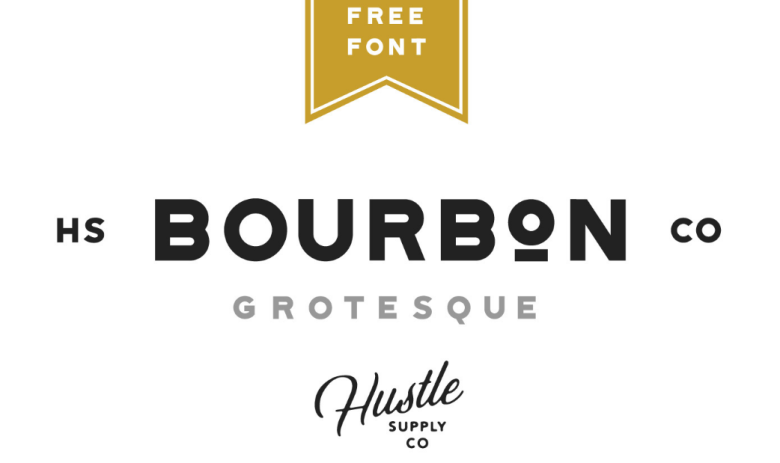
Bourbon Grotesque Font
Great! That was my initial feeling, continue to be a new font sans serif. Introducing Bourbon Grotesque Font! Bourbon Grotesque font was designed by Jeremy Vessey, and he shares completely free. Bourbon Grotesque is a sans serif display font with a rounded aesthetic. It comes in regular and inline styles and includes multilingual uppercase characters, numbers and punctuation.